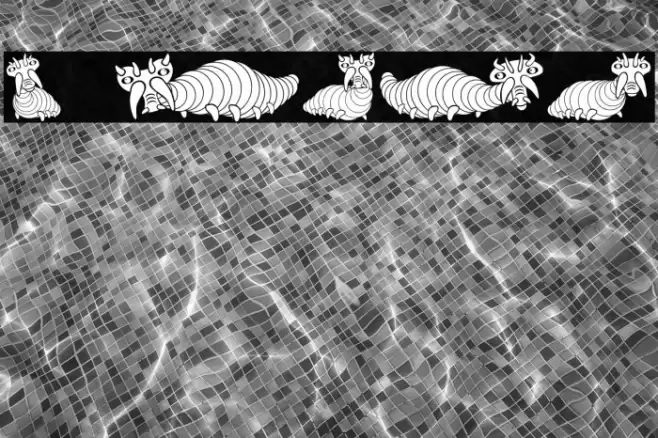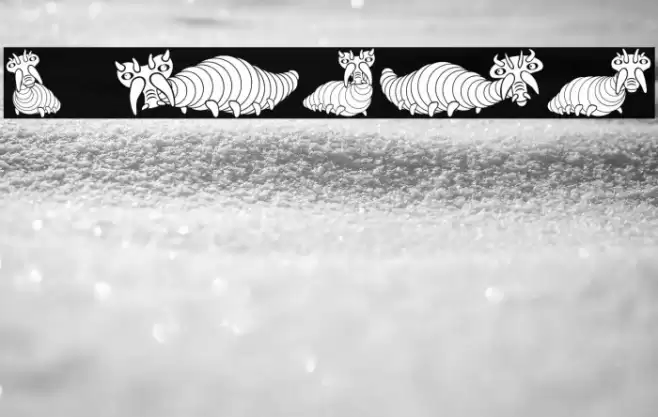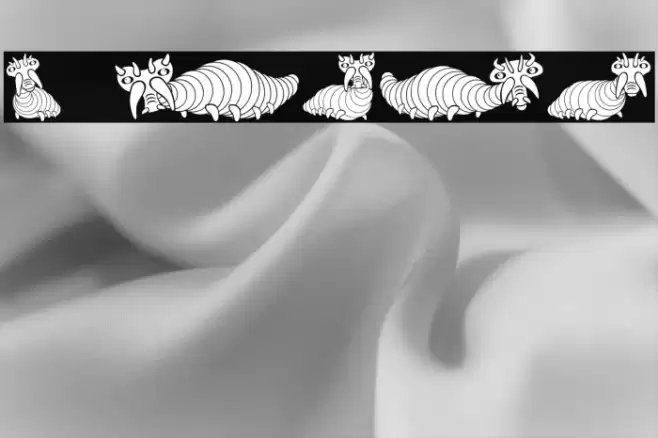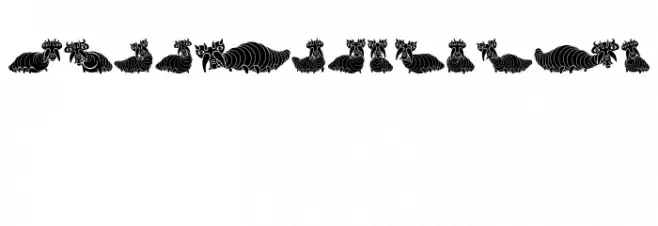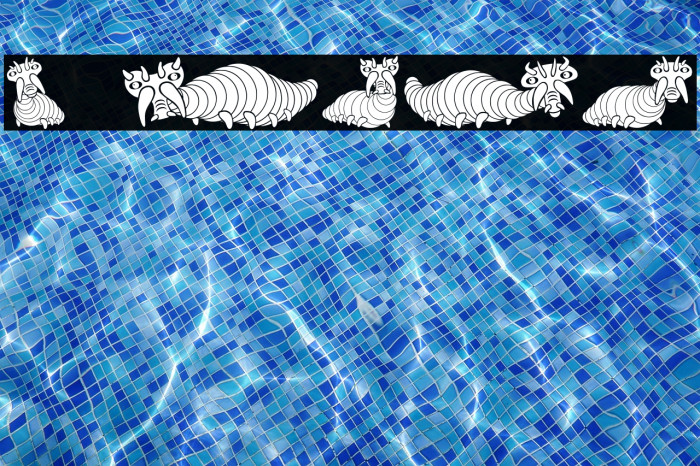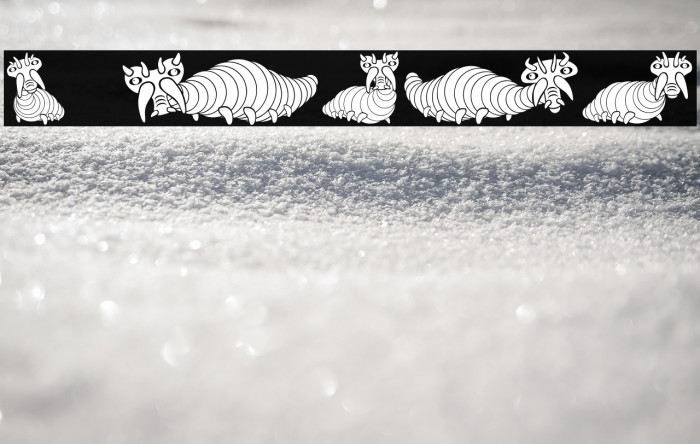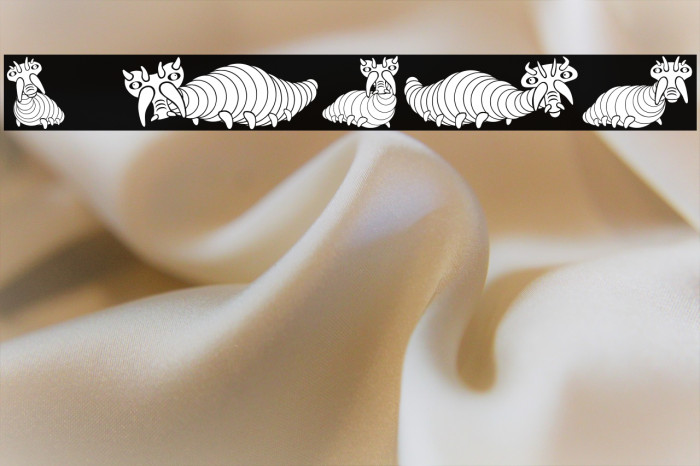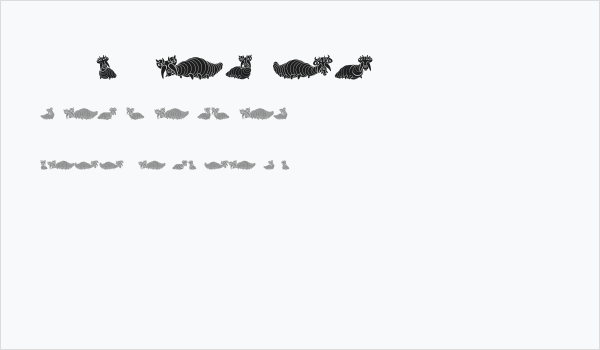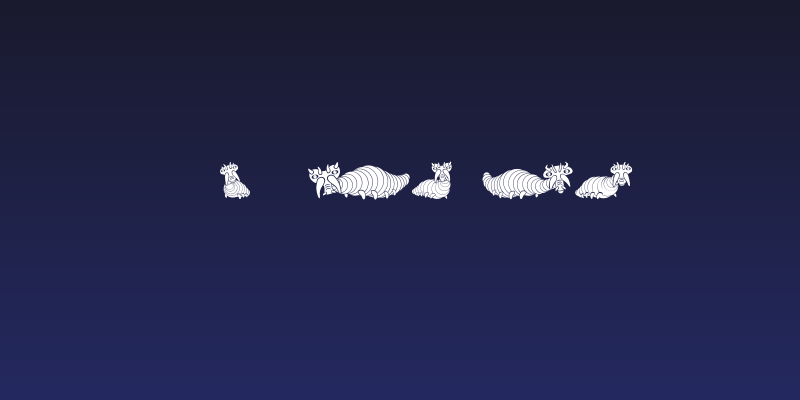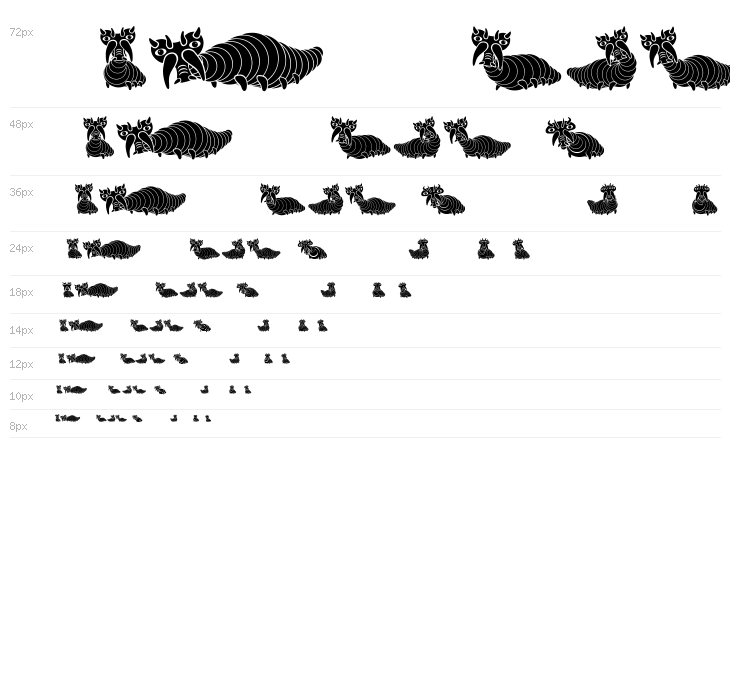
Wurm Regular Font
Wurm Regular Description
This is not a valid font. The image contains decorative elements resembling stylized creatures or abstract shapes, rather than traditional alphanumeric characters. These elements do not form a coherent typeface suitable for standard text representation.
The image does not depict a valid font from Dingbats fonts.
- Proposed Projects: This design could be used for decorative purposes, such as borders or artistic embellishments in graphic design projects.
- Use Case: Artistic decoration